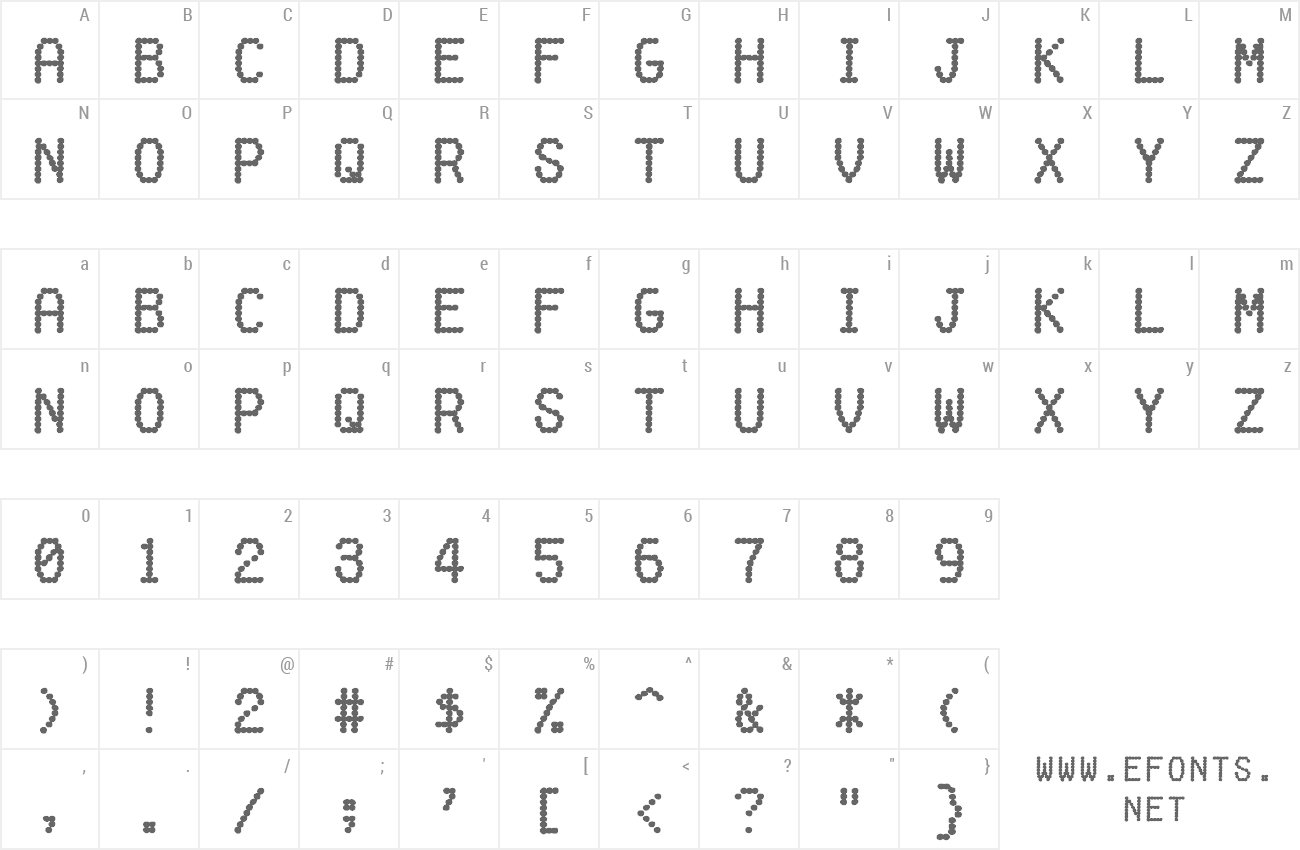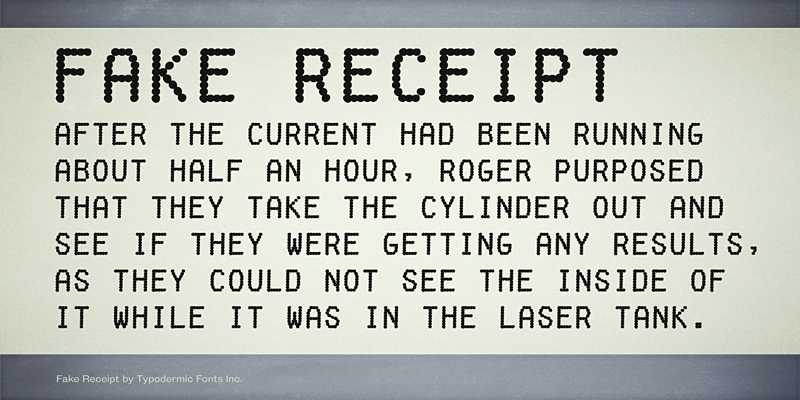
| Font name: | Fake Receipt |
| Categories | Techno, LCD |
| Author: | Typodermic Fonts |
Fake Receipt, which I created in 1999 resembles print from a typical, late 20th Century cash register. Fake Receipt supports more languages and includes fractions & numeric ordinals. Vertical metrics have been improved for better web performance. This font includes a license that allows free commercial use: sometimes referred to as a desktop license. This allows you to install the font on a computer and use it to create posters, web graphics, game graphics, t-shirts, videos, signs, logos and more. Read the license agreement for details. If you'd like to embed this font in an app, ebook, on the web or anything that's not covered by the desktop license agreement, visit the link below. You'll find distributors who offer different types of licenses or you can contact me for help. http://typodermicfonts.com/fake-receipt/ |